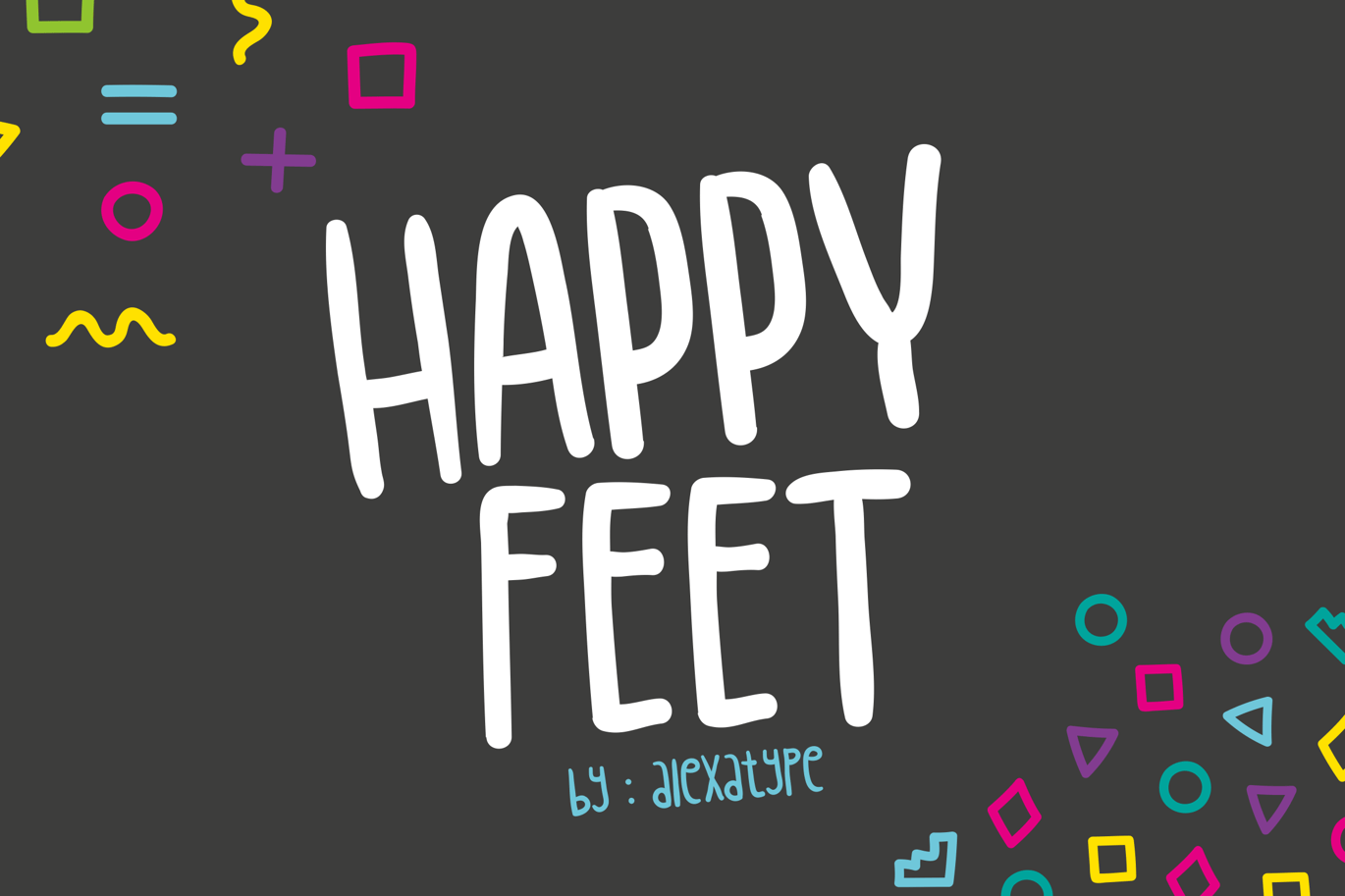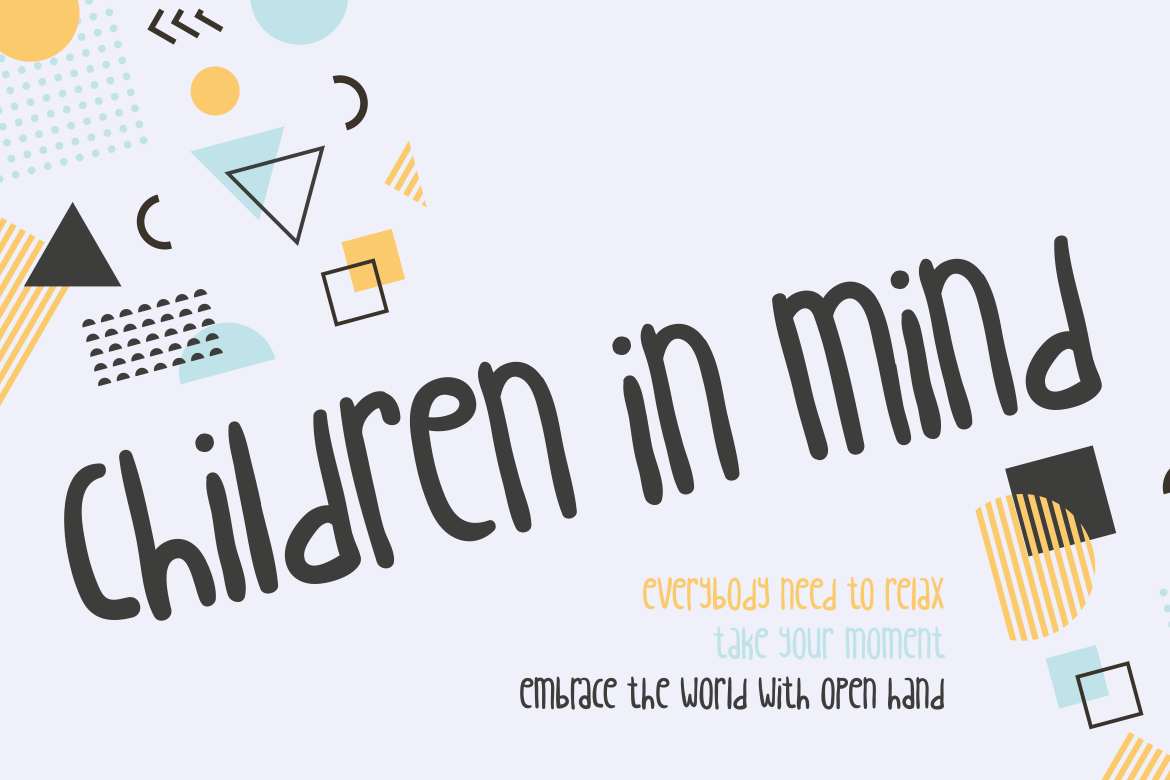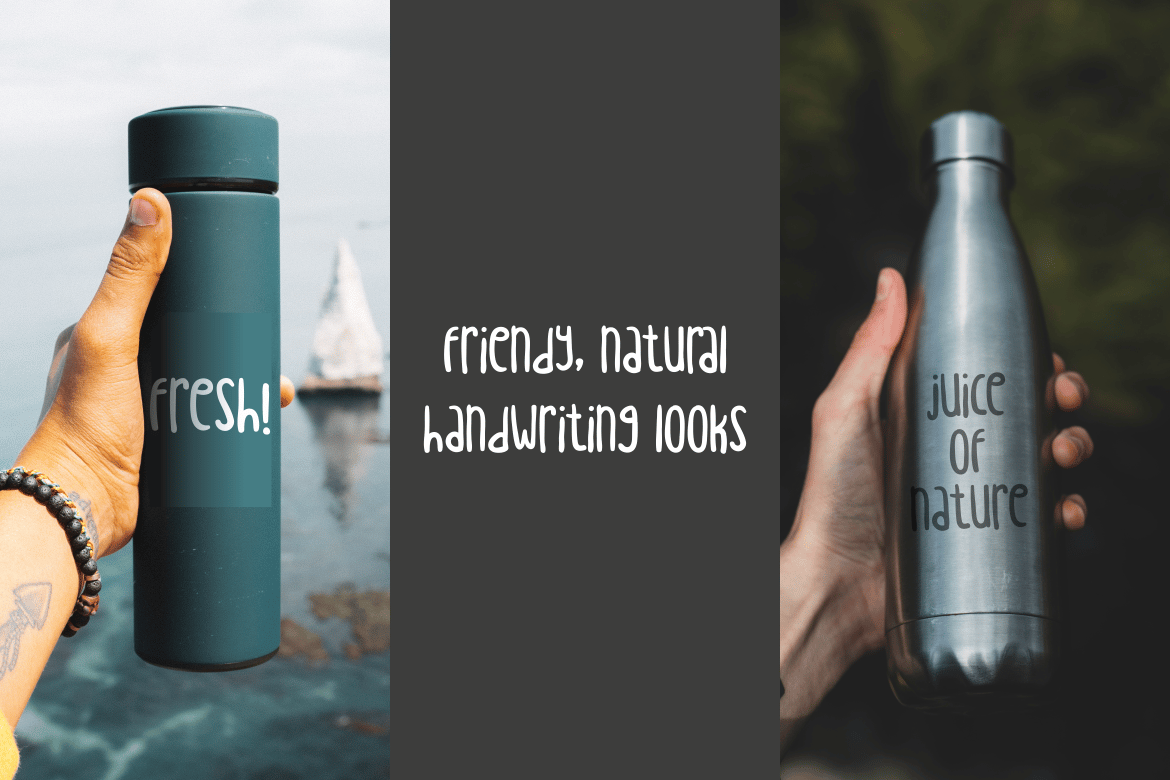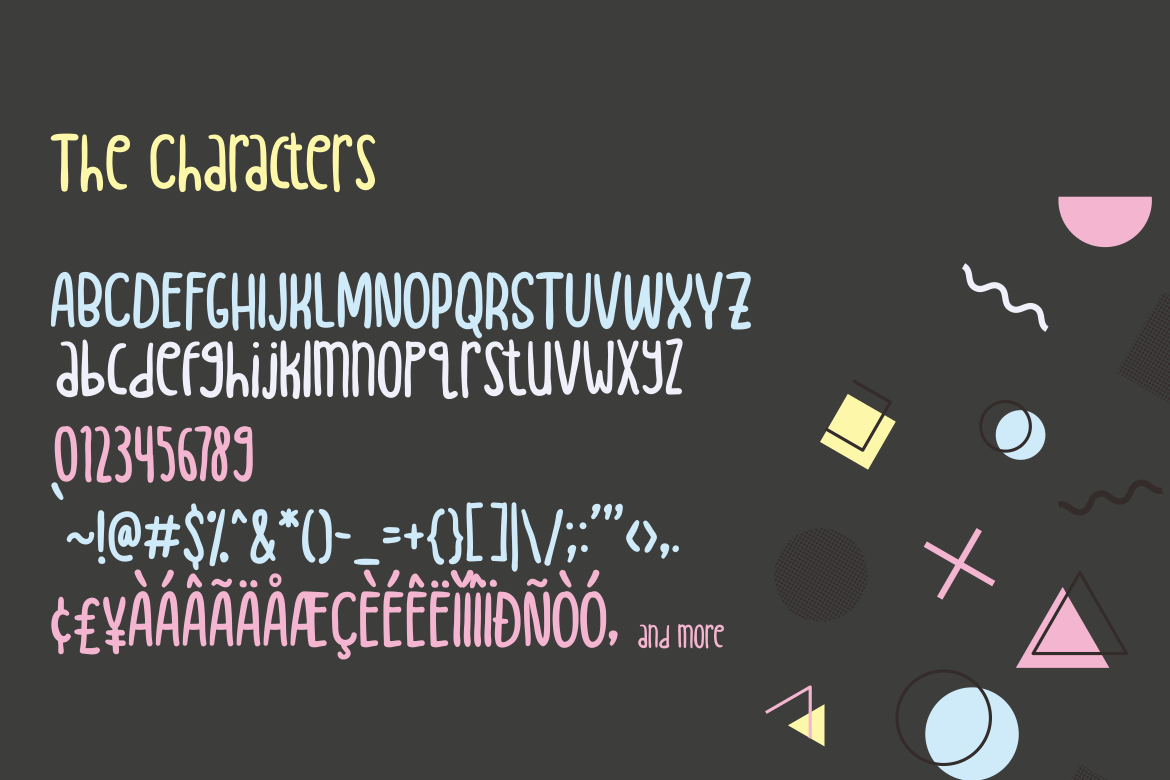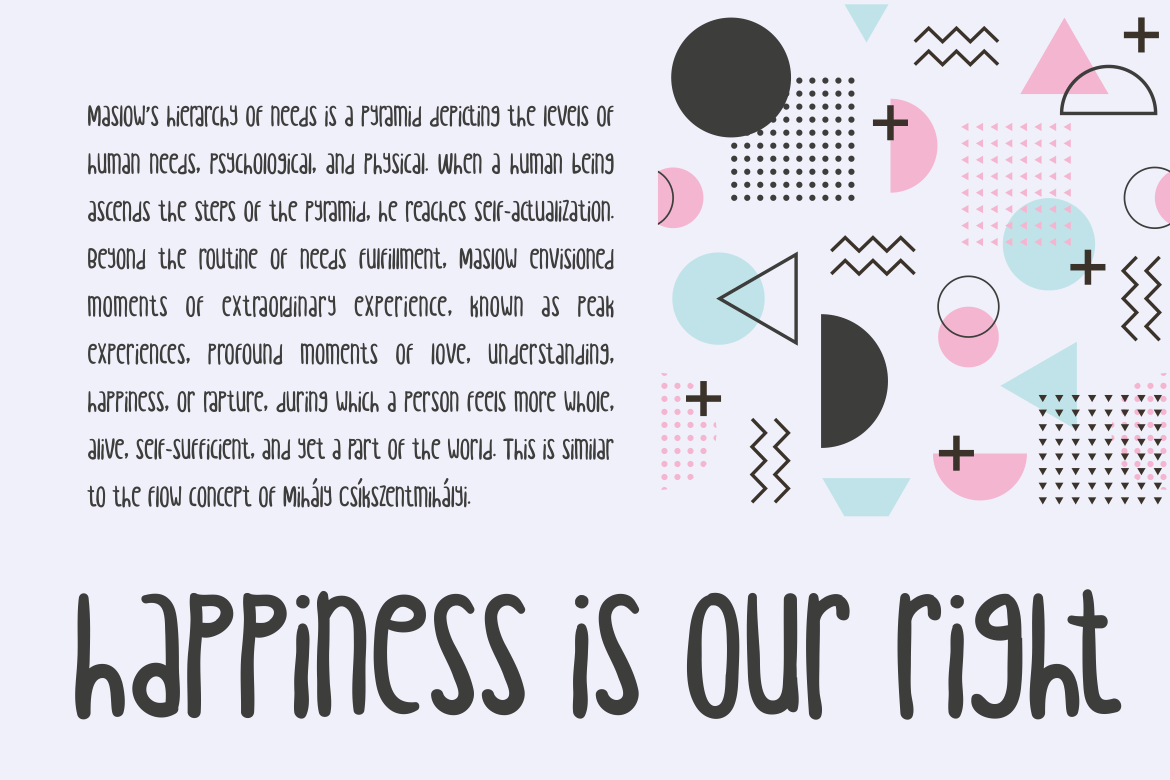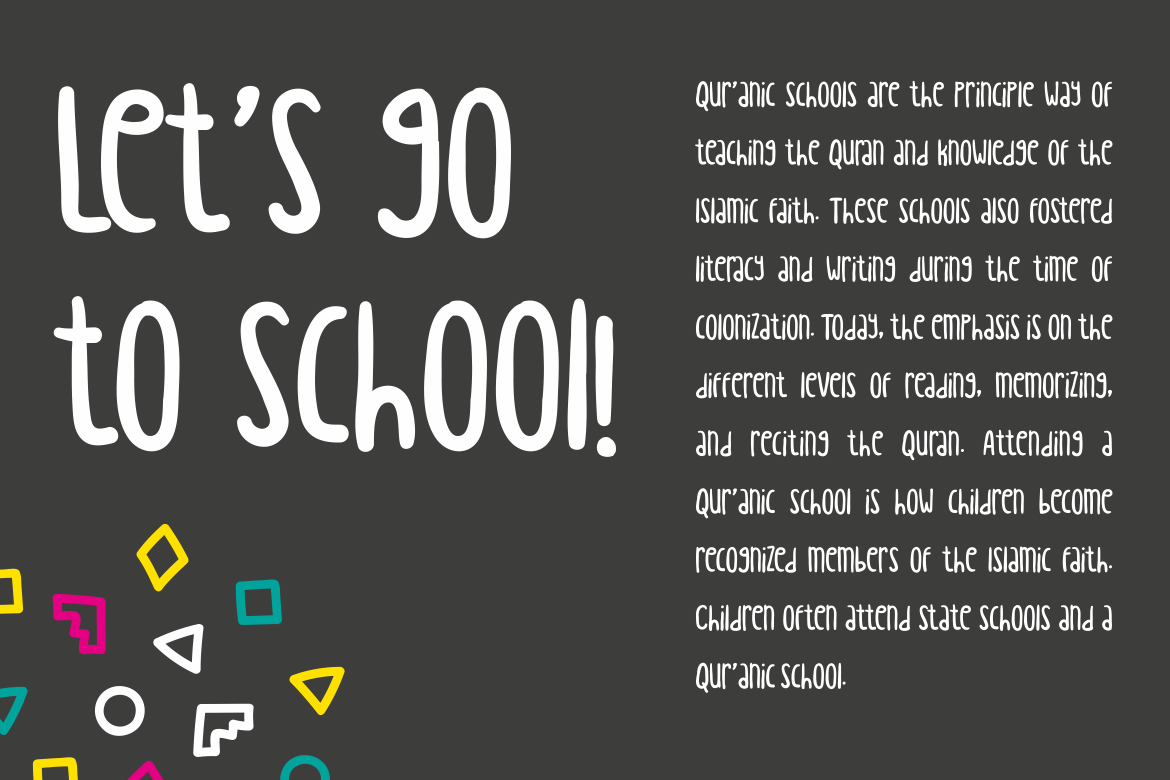
Playful & Whimsical Font – Happy Feet
Happy Feet is a quirky, handwritten font designed to bring warmth, fun, and creativity to any project. With its playful, slightly irregular strokes, this font is perfect for children’s books, school materials, fun branding, and joyful marketing campaigns. Whether you’re crafting educational posters, party invitations, or storytelling graphics, Happy Feet adds a touch of friendliness and imagination to your designs.
Key Features
- Hand-Drawn & Playful Style – Brings a fun, approachable feel to any project.
- Perfect for Kids’ Content & School Themes – Great for storybooks, learning materials, and playful branding.
- Casual & Quirky Letterforms – Adds a charming, natural touch to text.
- Versatile for Print & Digital Use – Works beautifully on posters, packaging, and social media graphics.
Happy Feet is ideal for teachers, children’s book authors, and brands that cater to kids and families. Its handwritten charm makes learning materials more engaging, while its lighthearted, energetic strokes enhance playful branding and marketing visuals. Whether you’re designing fun product packaging, cheerful social media graphics, or lively event invitations, this font ensures a friendly and delightful experience.